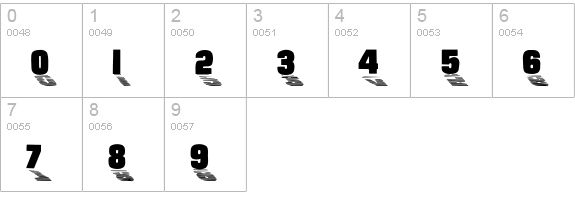
Wharmby Plain Font Details
Wharmby Plain font is a stunning typeface that exudes elegance and sophistication. With its clean lines and refined curves, this font is perfect for adding a touch of class to any design project. The Wharmby Plain font boasts a timeless appeal that is both versatile and captivating, making it ideal for a wide range of applications. This font's simplicity and readability make it a go-to choice for both print and digital designs. Whether you're designing a logo, creating a poster, or crafting a website, Wharmby Plain font will effortlessly elevate your work to the next level. Its balanced letterforms and generous spacing ensure optimal legibility, making it easy for your audience to engage with your content. One of the best things about Wharmby Plain font is that it is free. That's right - you can download this exceptional font without spending a single dime. It is freely available to download at FontsMarket.com, a trusted platform for high-quality fonts. This means that you can enhance your designs with Wharmby Plain font without breaking the bank. So why wait? Take advantage of the opportunity to elevate your design projects with Wharmby Plain font. Its timeless appeal, versatility, and readability make it a must-have typeface for any designer. Download this exquisite font for free at FontsMarket.com and let your creativity soar.